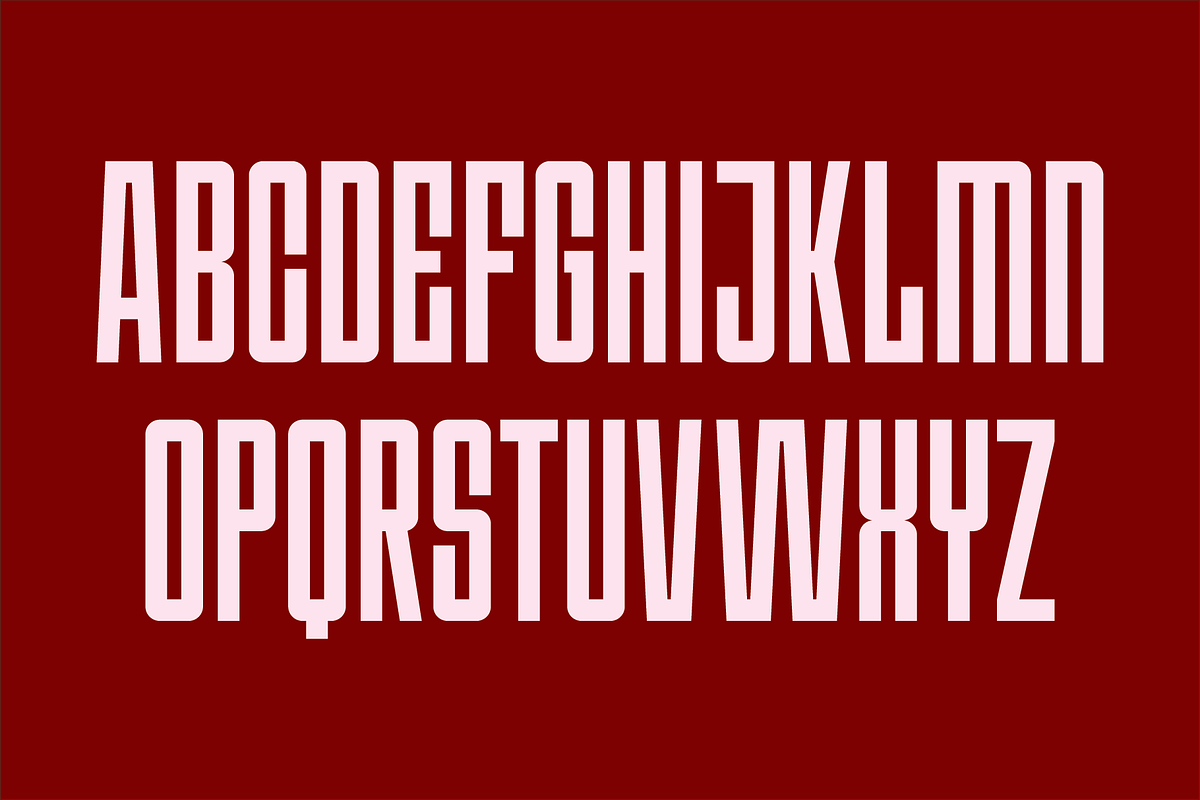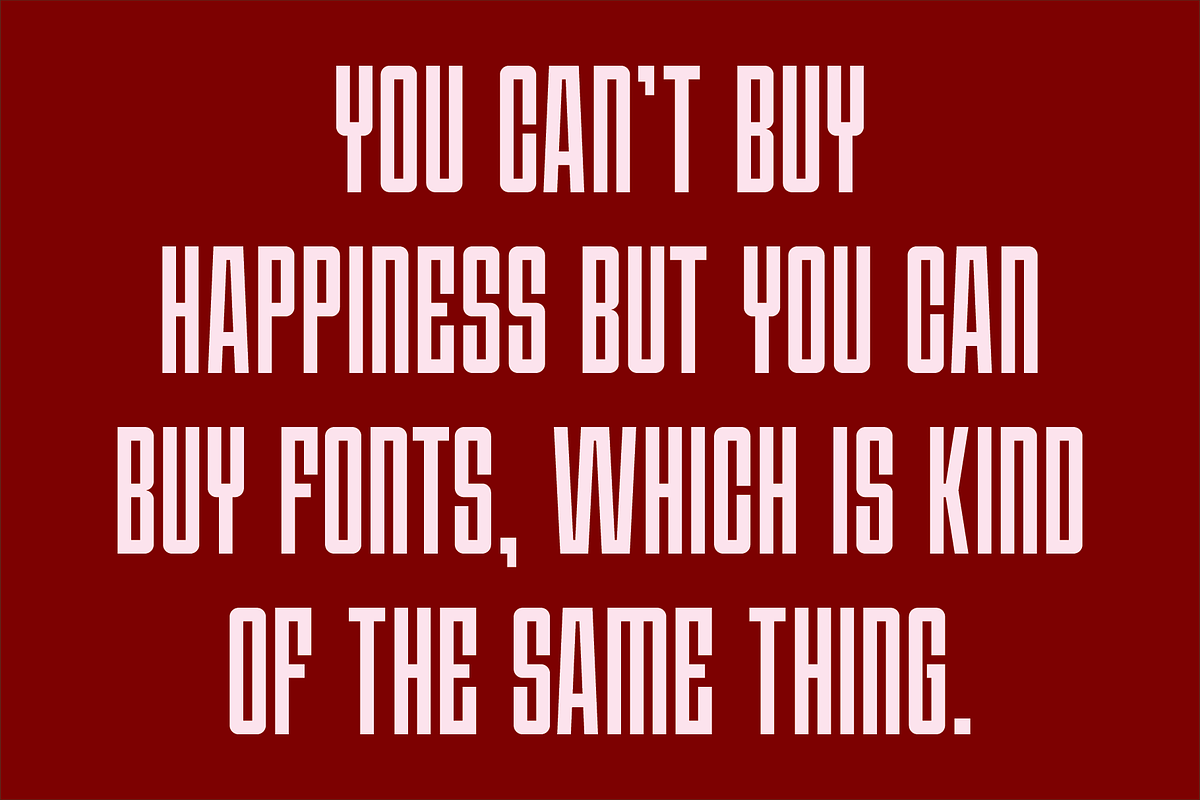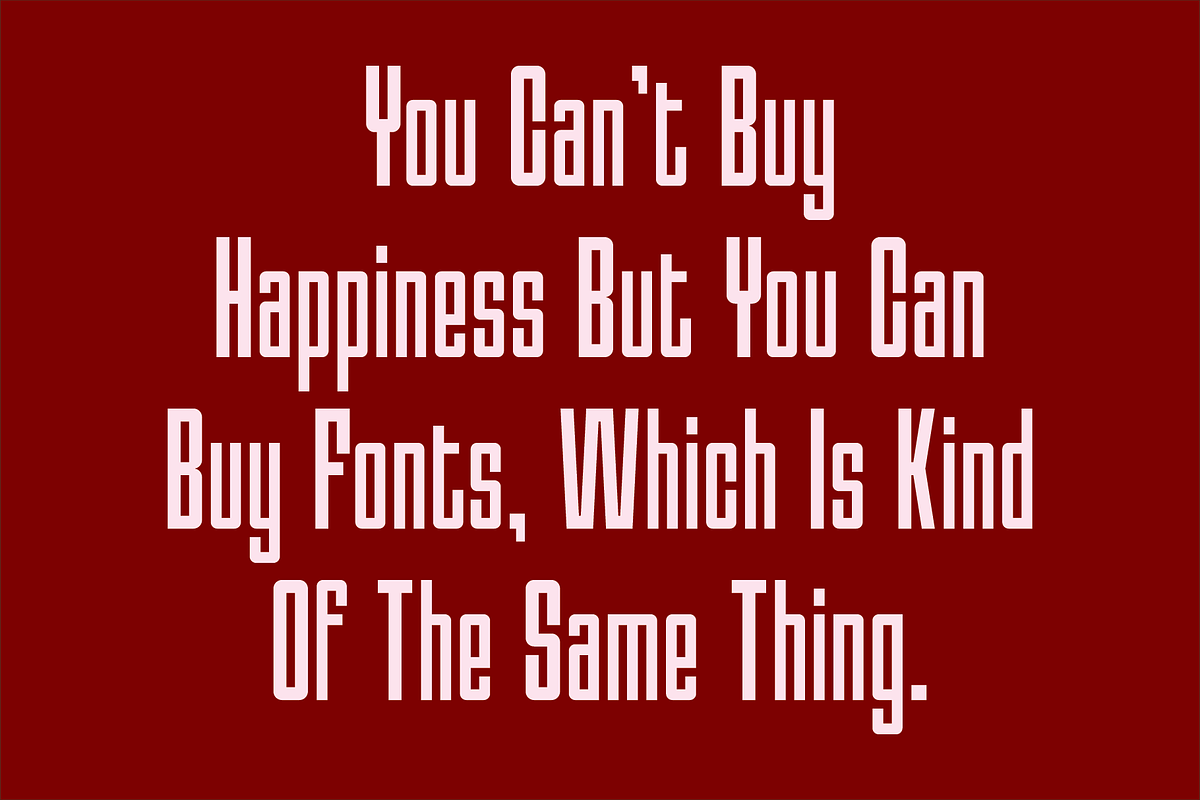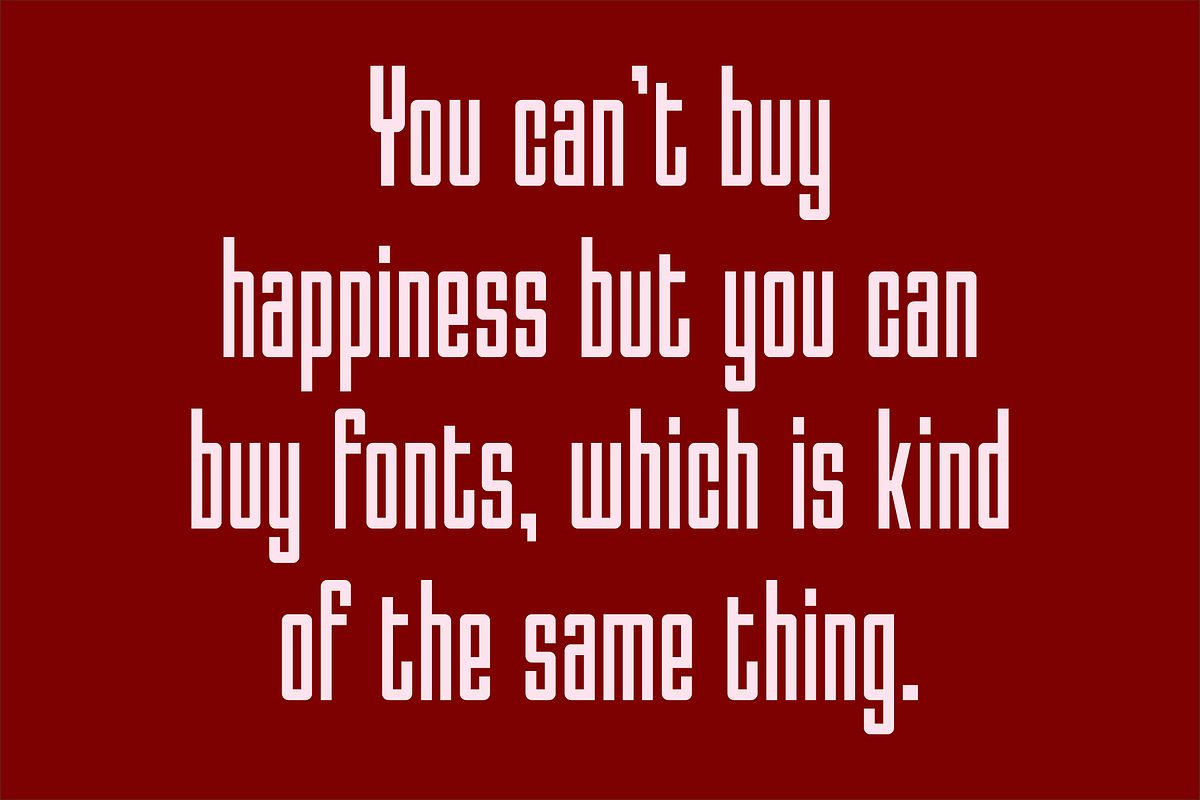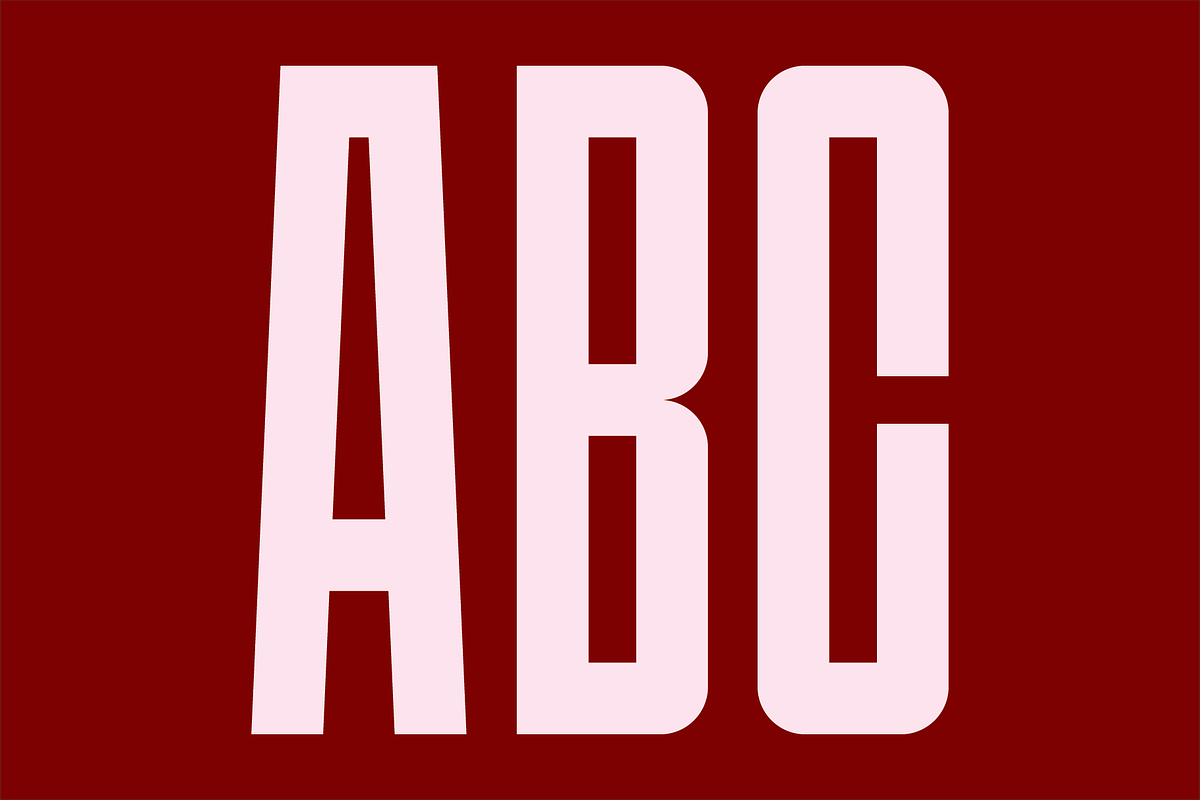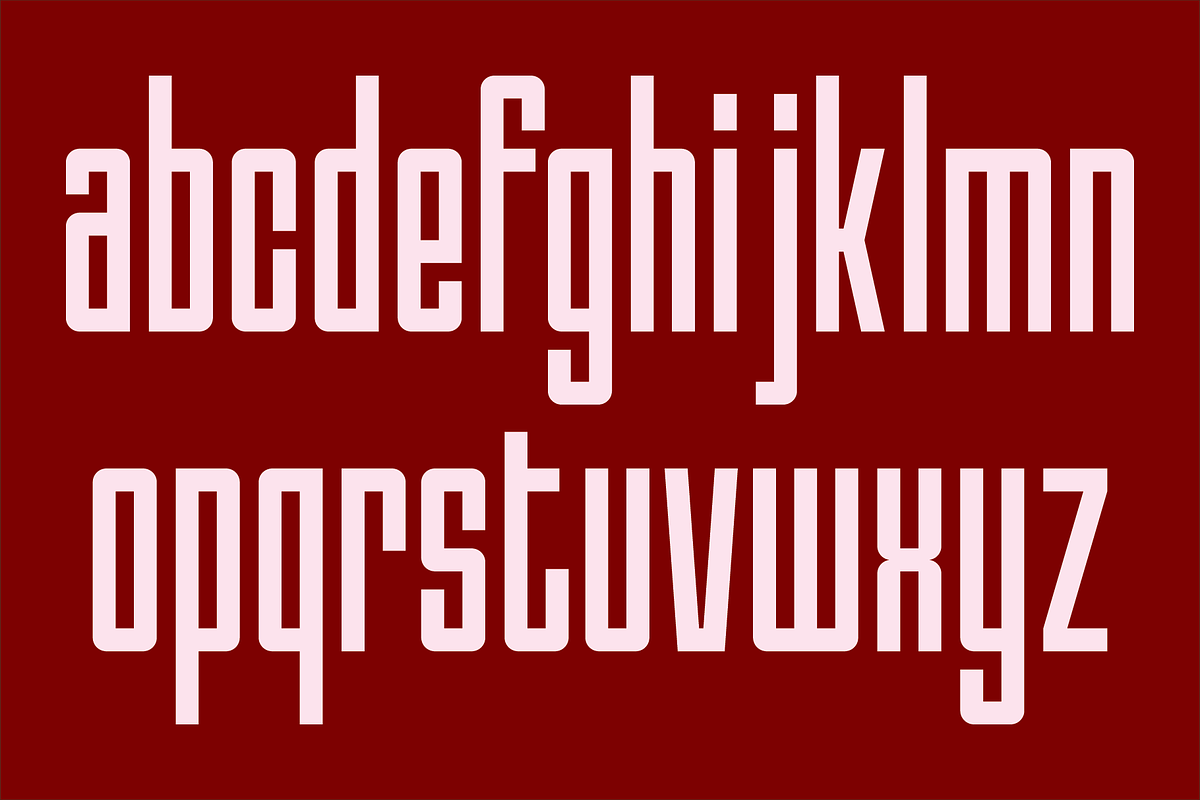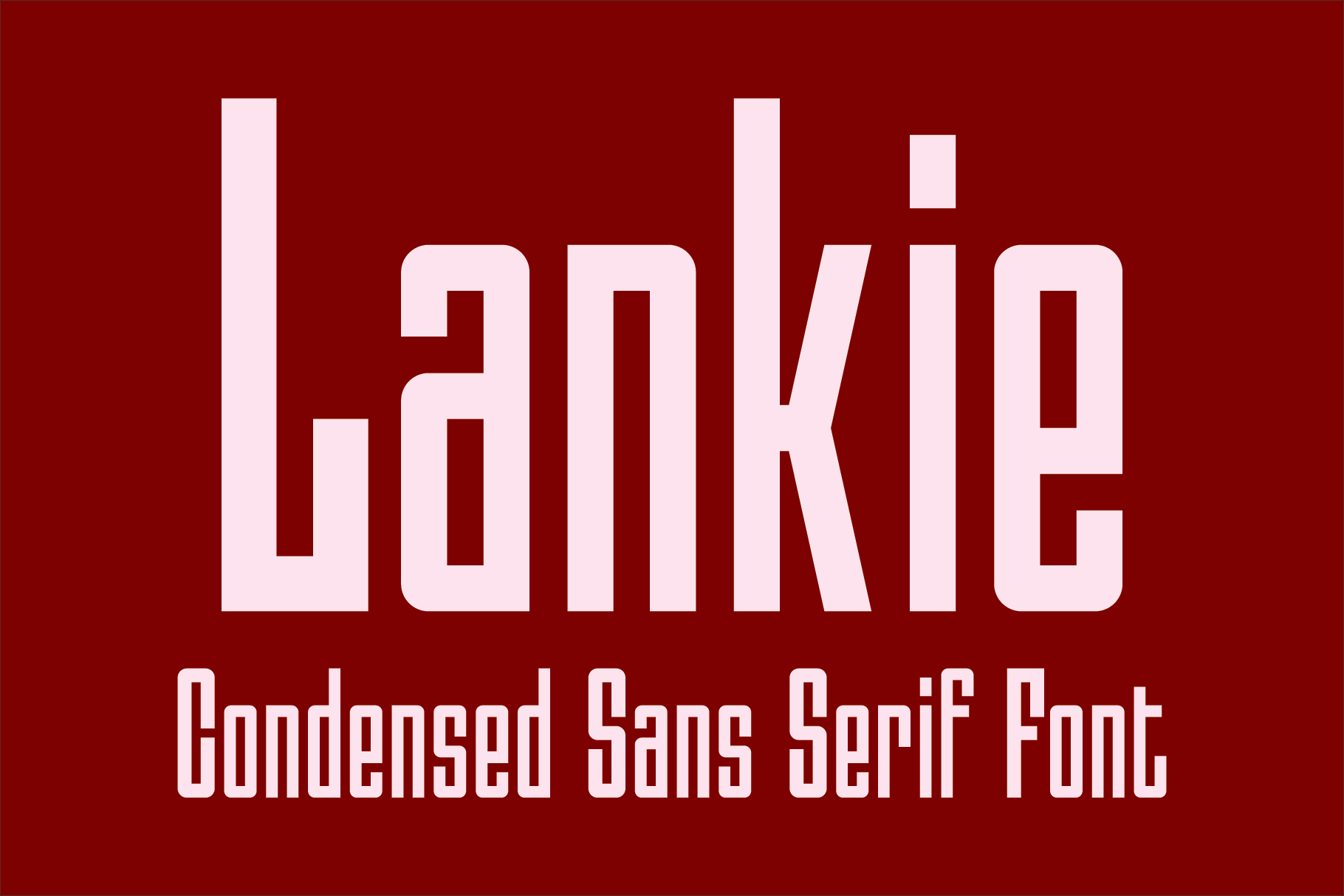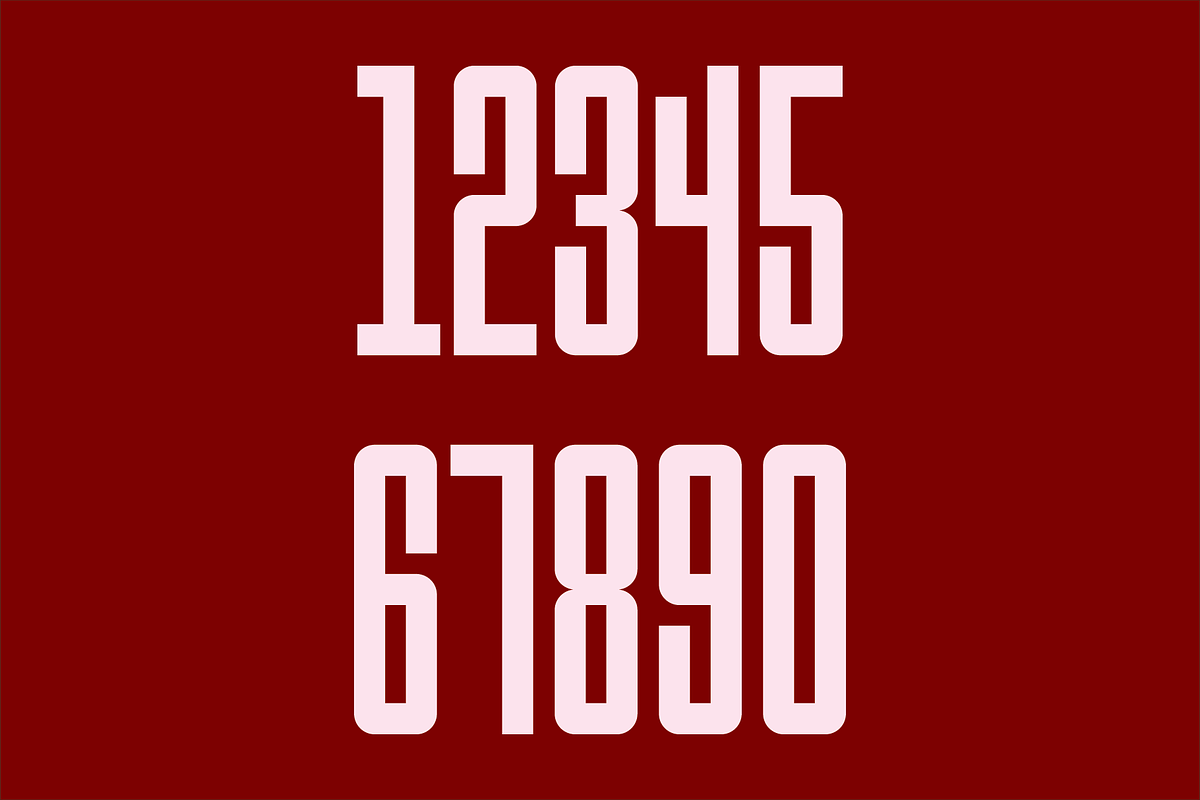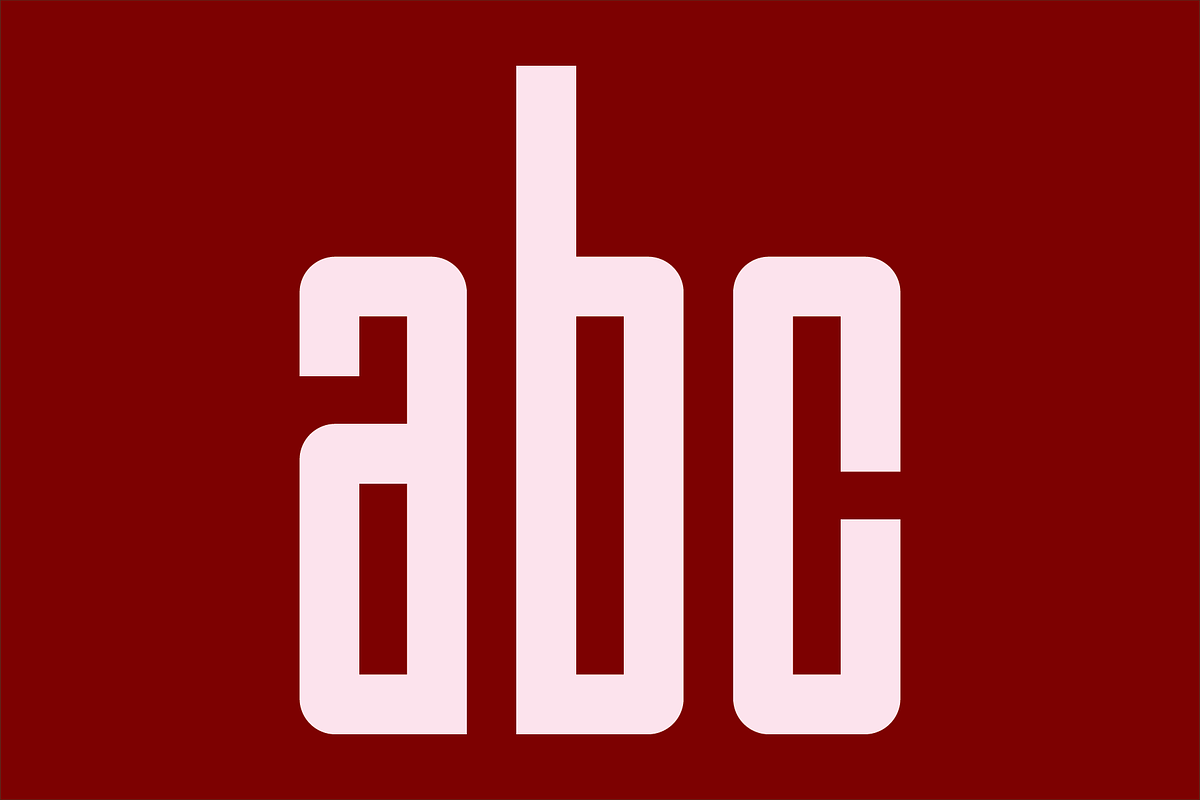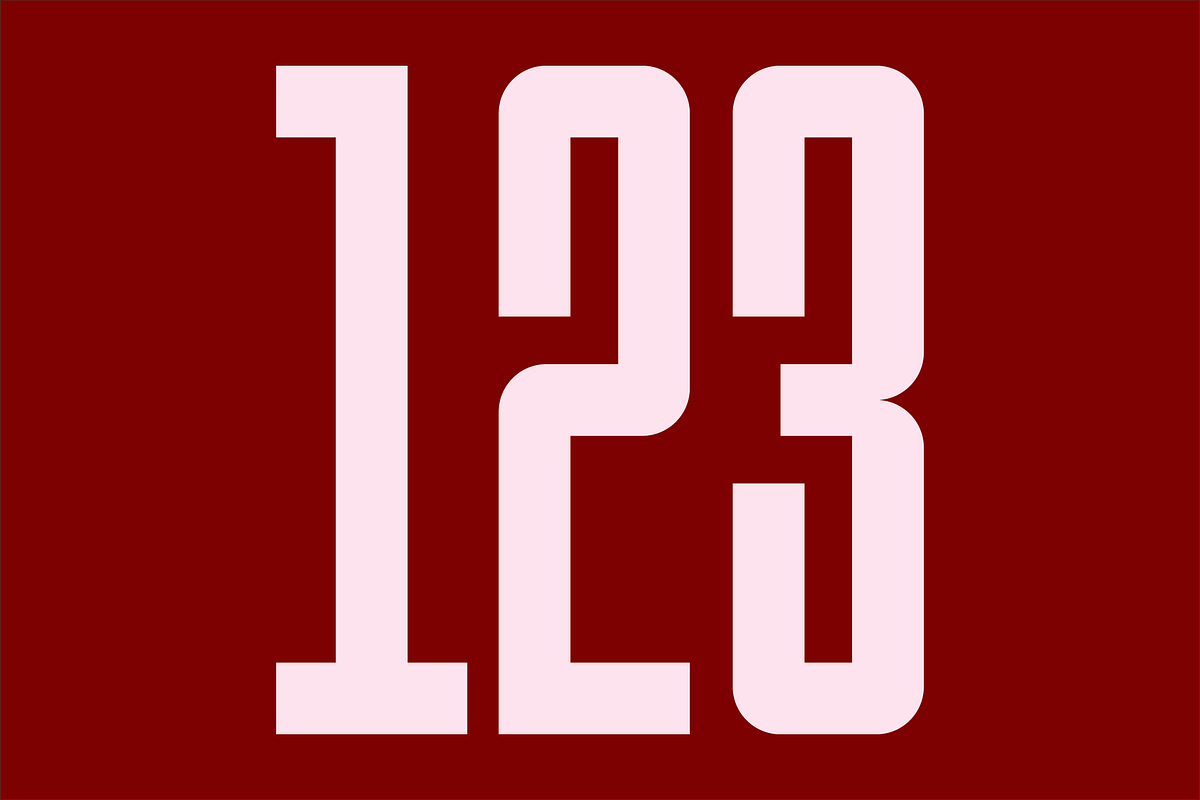
Lankie - Condensed Sans Serif Font
Lankie is a clean, contemporary, geometric, condensed sans serif font. The font is ideal for headlines, titles, branding and small blocks of text.